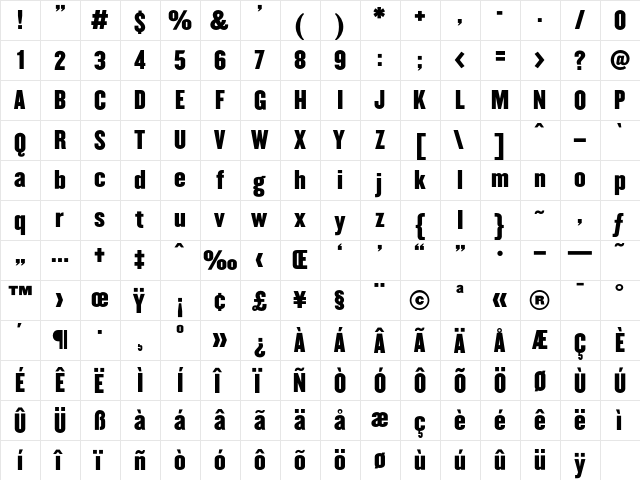
Champion HTF-Welterweight
Design Context for Champion Typeface
Champion offers clean, dependable letterforms without strong stylistic allegiance, making it a practical choice for designers who need flexibility.
Pro Tip: Use Champion in both headline and body roles to test its range before committing to a single application.